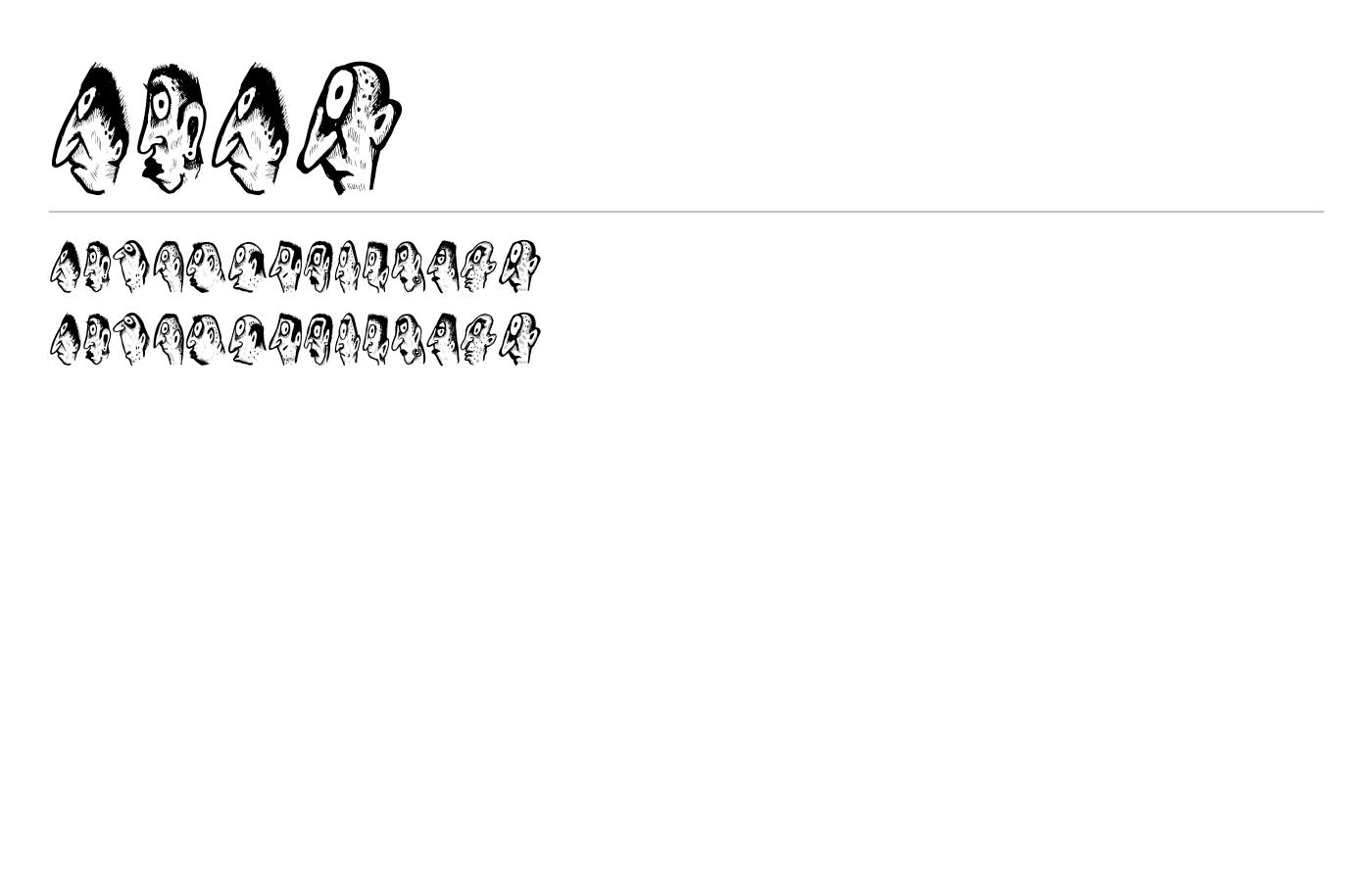
Abantu Font is a highly unique and artistic display font featuring hand-drawn, quirky human head illustrations instead of traditional letterforms. This font brings a playful, whimsical, and slightly surreal character, making it perfect for creative projects, eye-catching logos, posters, or editorial designs that want to convey individuality and unconventional style. It stands out for its illustrative, expressive nature, best suited for decorative use rather than body text or formal communication.
Abantu Font
About Abantu Font
| Font family | Abantu Font |